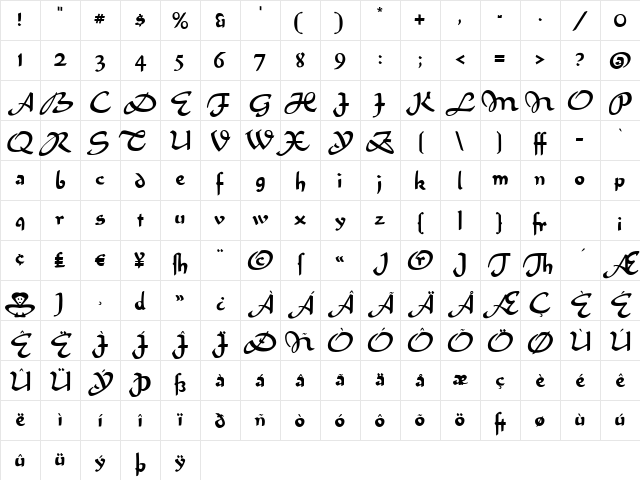
Ali Baba Regular
Design Context for Ali Baba
Ali Baba is a composed and adaptable typeface that performs quietly and consistently across a wide range of design contexts.